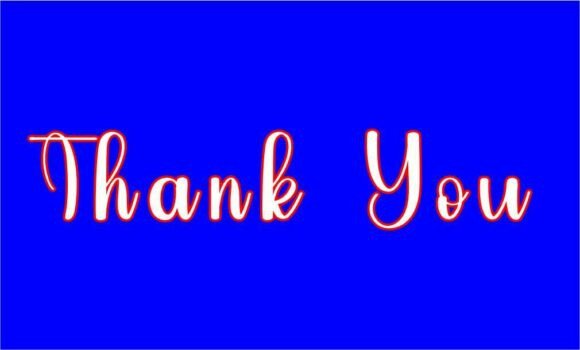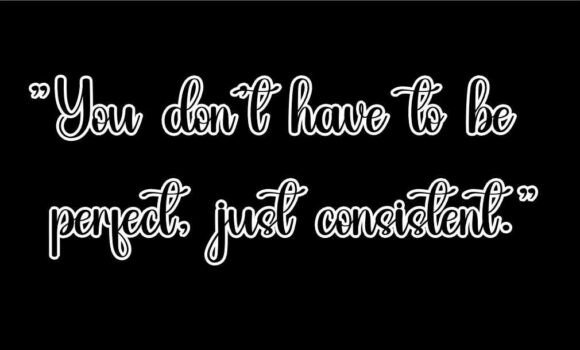
The Elusive Perfect Font: My Encounter with Angela
I’ll never forget the time I was working on a wedding invitation project, and my client asked for a font that was “elegant, yet playful” and “totally unique.” I scoured the internet, tried out dozens of fonts, but nothing seemed quite right. That was until I stumbled upon Angela, an exquisite script font that stole my heart. In this article, I’ll share my experience with Angela, its features, and how you can make the most of it in your designs.
An Honest Review of Angela
• ✨ Elegant and feminine with a smooth, handwritten feel
• ✅ Flowing strokes and modern calligraphy vibes
• 🌟 Perfect for branding, logos, invitations, social media quotes, packaging, and wedding projects
• 🎉 Highly versatile and works well in various design contexts
While Angela is an amazing font, there are a few things to keep in mind:
• ⚠️ Some letters may not work well in all caps, so be mindful of font pairing
• 🤔 Limited use of extreme italic or bold styles, but the regular weight is stunning
3. Experiment with OpenType features like ligatures and stylistic alternates to add personality to your text
Exploring Alternatives to Angela
If you’re looking for similar fonts or want to try something new, here are a few alternatives:
• Kaitlynn: A whimsical script font with a more rustic feel, perfect for bohemian-inspired designs
• Maeves: A luxurious calligraphy font with elegant swashes, ideal for high-end branding and wedding designs
• Adorn: A modern script font with a mix of cursive and print letters, great for fashion and lifestyle brands
• Elaine: A beautiful, handwritten font with a softer feel, suitable for more casual designs like social media graphics
The Story Behind Angela
Angela was designed with love and care by a talented type designer who aimed to create a font that exudes elegance and romance. Inspired by traditional calligraphy and modern handwriting, Angela is the perfect blend of classic and contemporary styles.
Q: What type of designs is Angela best suited for?
Angela works beautifully for branding, logos, invitations, social media quotes, packaging, and wedding projects.
Q: Is Angela a difficult font to read?
No, Angela is designed to be legible and easy to read, making it perfect for body text and headlines.